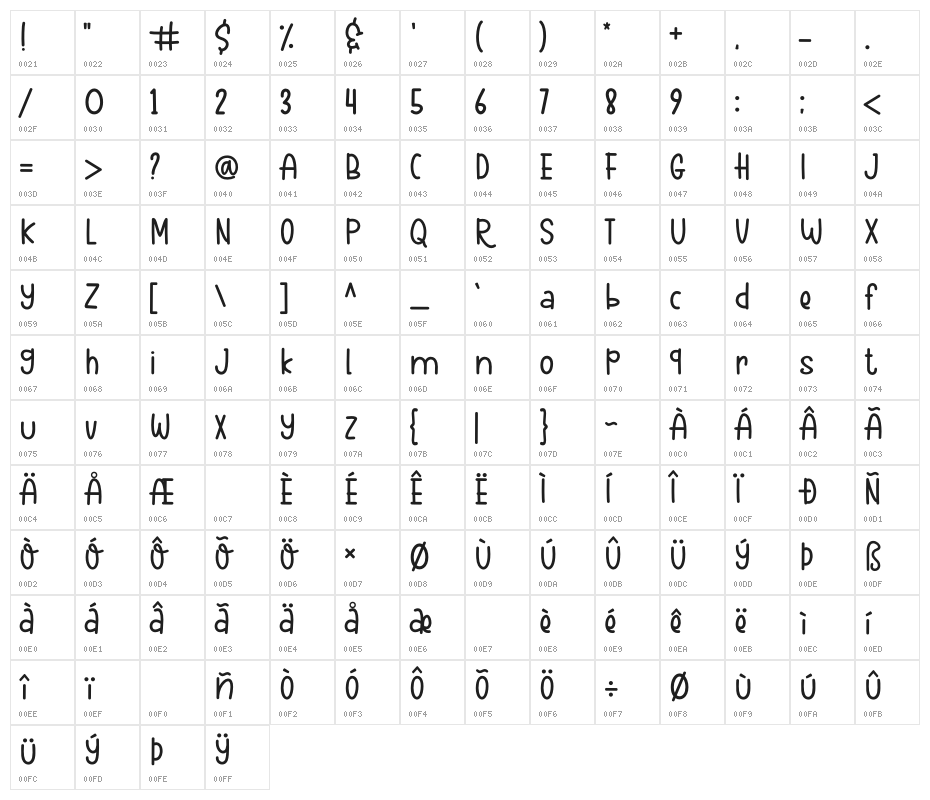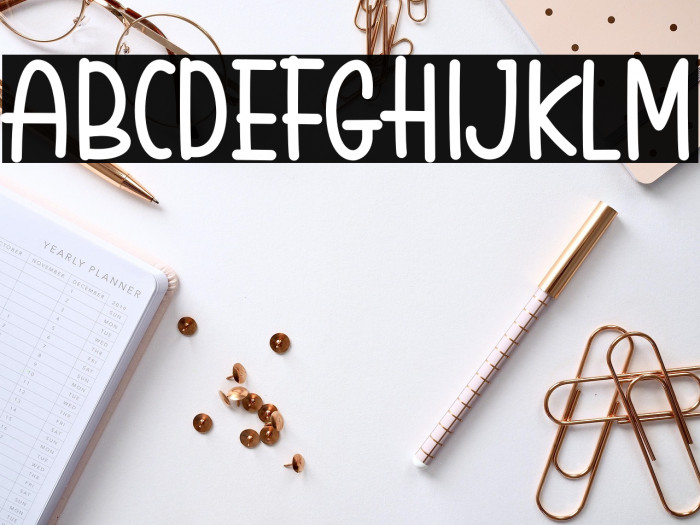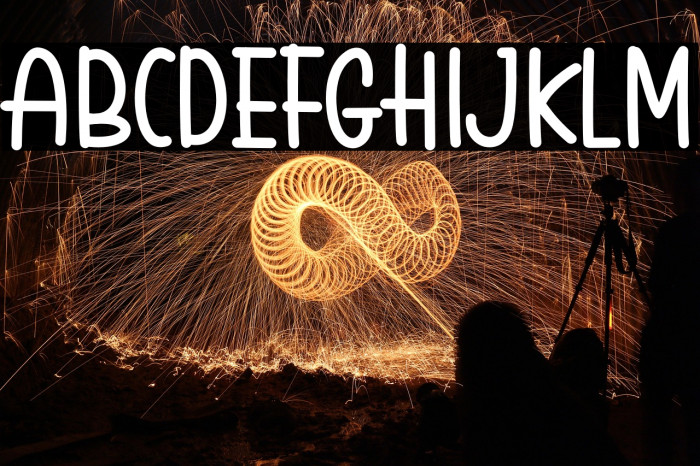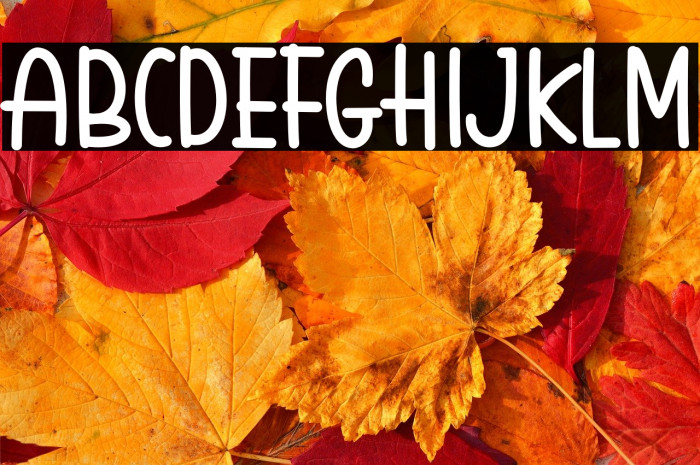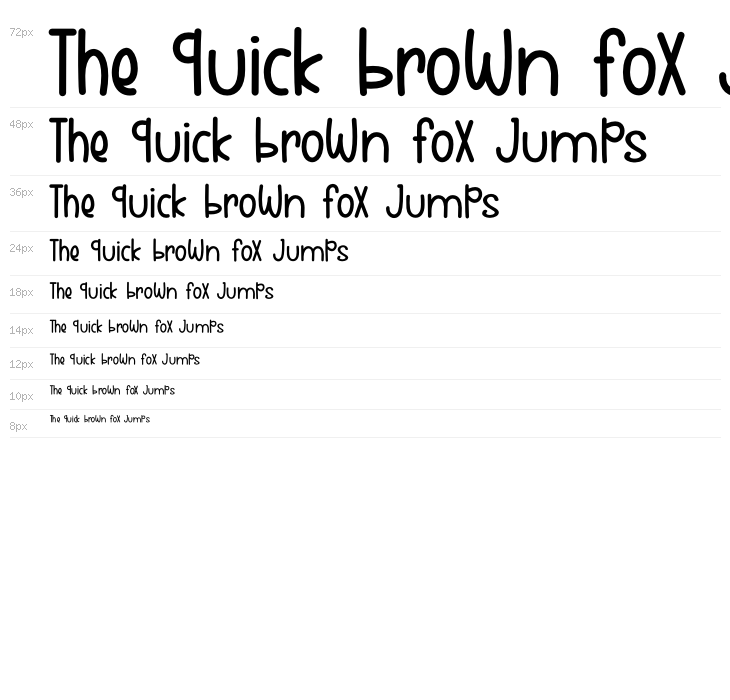
Holiday Island Font
Holiday Island Description
This playful and casual font features a handwritten style with a friendly and approachable appearance. The characters are rounded and slightly irregular, giving it a whimsical and informal feel. The strokes are consistent in weight, providing a uniform look across all characters. This font is perfect for projects that require a touch of personality and charm, such as greeting cards, children's books, or playful branding. Its legibility and unique style make it suitable for both digital and print media.
| Proposed Projects | Ideal for greeting cards, children's books, playful branding, and casual invitations. |